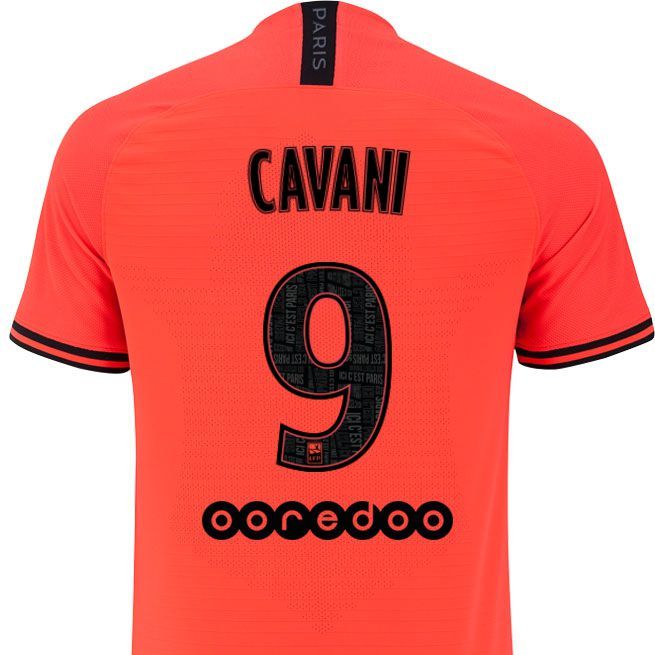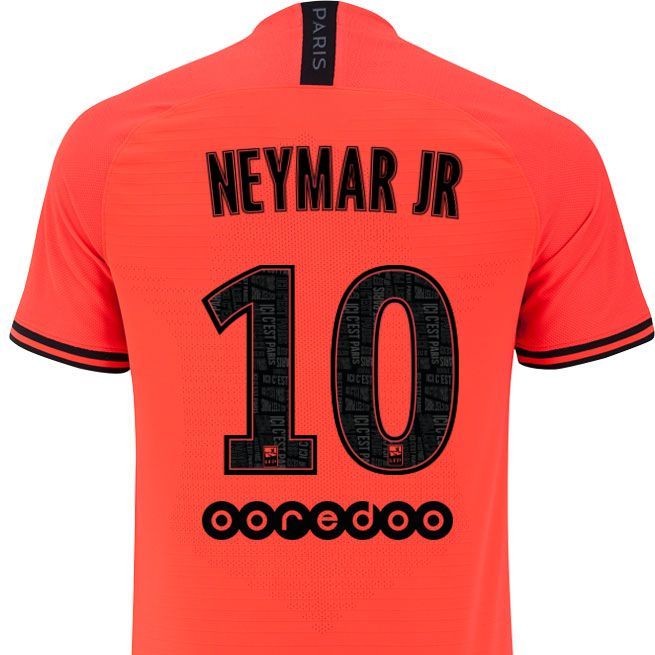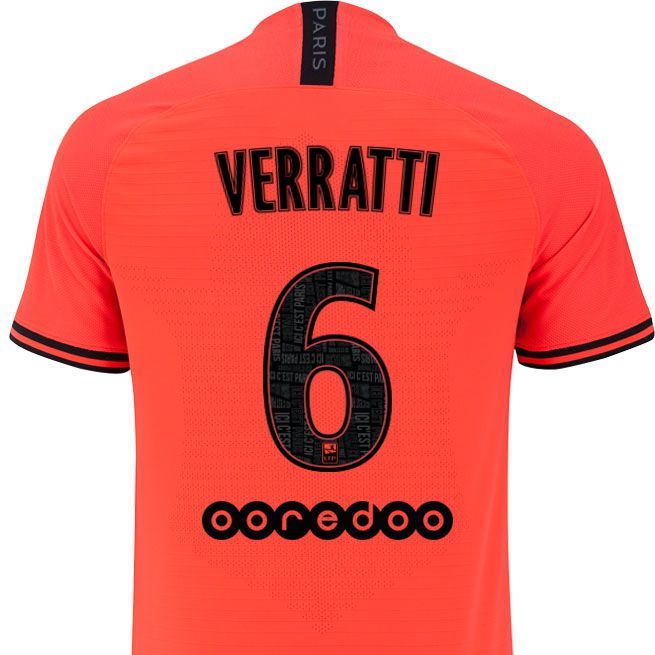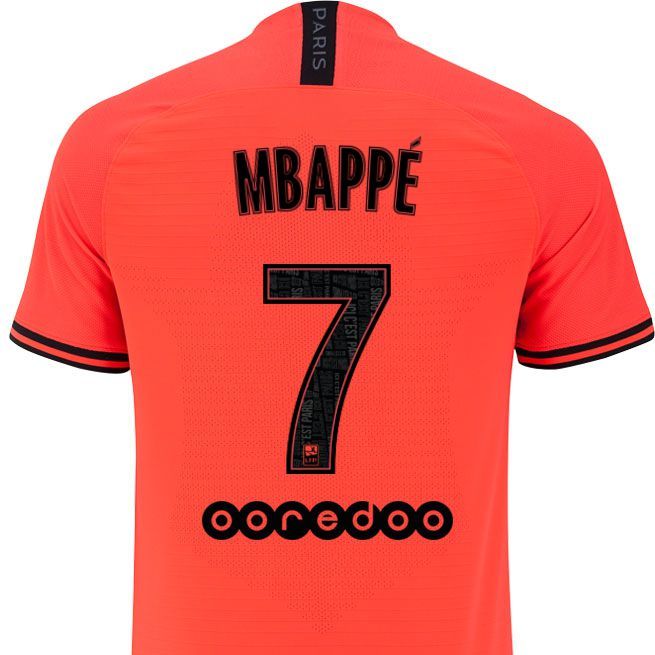
PSG unveils 2019-20 font The motto of the French club it's the protagonist in the new jersey
The good news for PSG fans arrived last week when the club presented the new Away kit, which renews the partnership with Jordan brand not only for the Champions League but also for the Ligue 1 races.
The first seasonal releases have also revealed another detail of the new kit, that is the font, which undergoes a small modification compared to the standard adopted by the French federation, on the model of what happens in the Premier League and LaLiga.
If the design of the letters and numbers cannot be modified, the league authorizes the clubs to modify the internal background. PSG together with Nike has chosen to create a typographic texture, created by combining the motto "ICI C'EST PARIS" in different sizes, directions, and shades, for a discreet but interesting effect.
This is another very particular detail for the French club, which already used the geographical map of Paris as the background of the numbers last year.